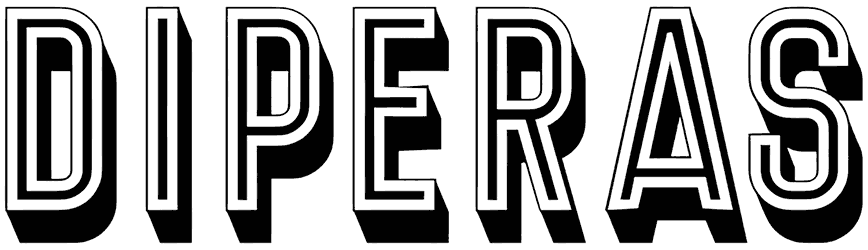
Diperas Font
Diperas font comes in three styles. This 3D font belongs to chiseled fonts, and the lowercase letters are not ready. It is approachable and appropriate for all kinds of projects with minimal designs.
This retro font tends to remind the style of entertainment products related to the 1960s to 1980s. So now you can choose to design posters, signs, badges, billboards, and branding with a traditional theme.
“Diperas” comes in Regular, Thin and Capitals variant.